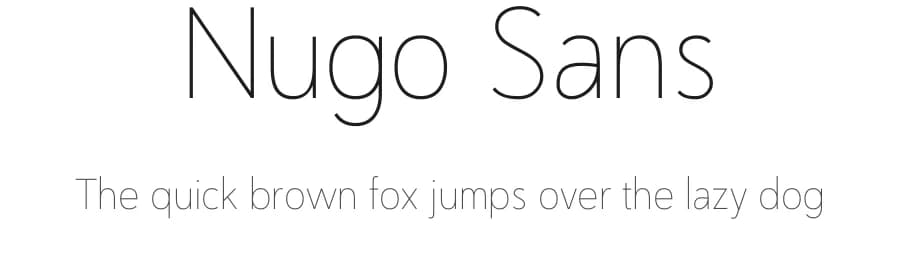
About Nugo Sans Font
Nugo Sans is a Light Sans Serif Font who can be applied in any kind of design especially that need a light weight typeface.
- Ultra-light, Clean, Modern, Basic
Nugo Sans Font